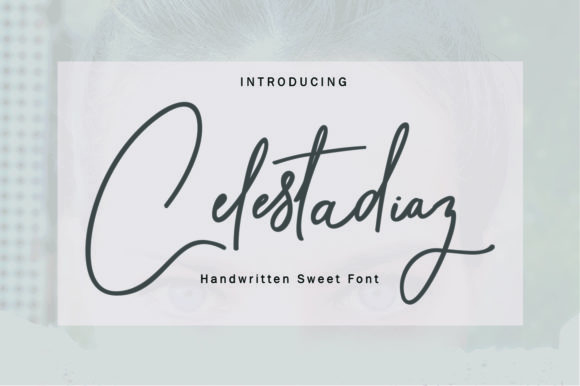
Indulge in the captivating world of Celestadiaz, a modern calligraphy font that will ignite your creativity and leave an unforgettable mark on all your designs!
Inspired by the graceful fluidity of handwritten letters, Celestadiaz embodies a natural, heartfelt appeal that adds a touch of warmth and authenticity to your projects. Its lovingly crafted strokes dance across the page, carrying with them the essence of elegance and sophistication.
With Celestadiaz, you have the power to transform ordinary designs into extraordinary masterpieces. Whether you're crafting heartfelt invitations, captivating social media posts, or stunning branding materials, this versatile font will empower you to express your unique style with confidence and flair.
Don't settle for ordinary fonts that blend into the background. Embrace the enchantment of Celestadiaz and watch as your designs blossom into works of art that capture hearts and inspire imaginations.